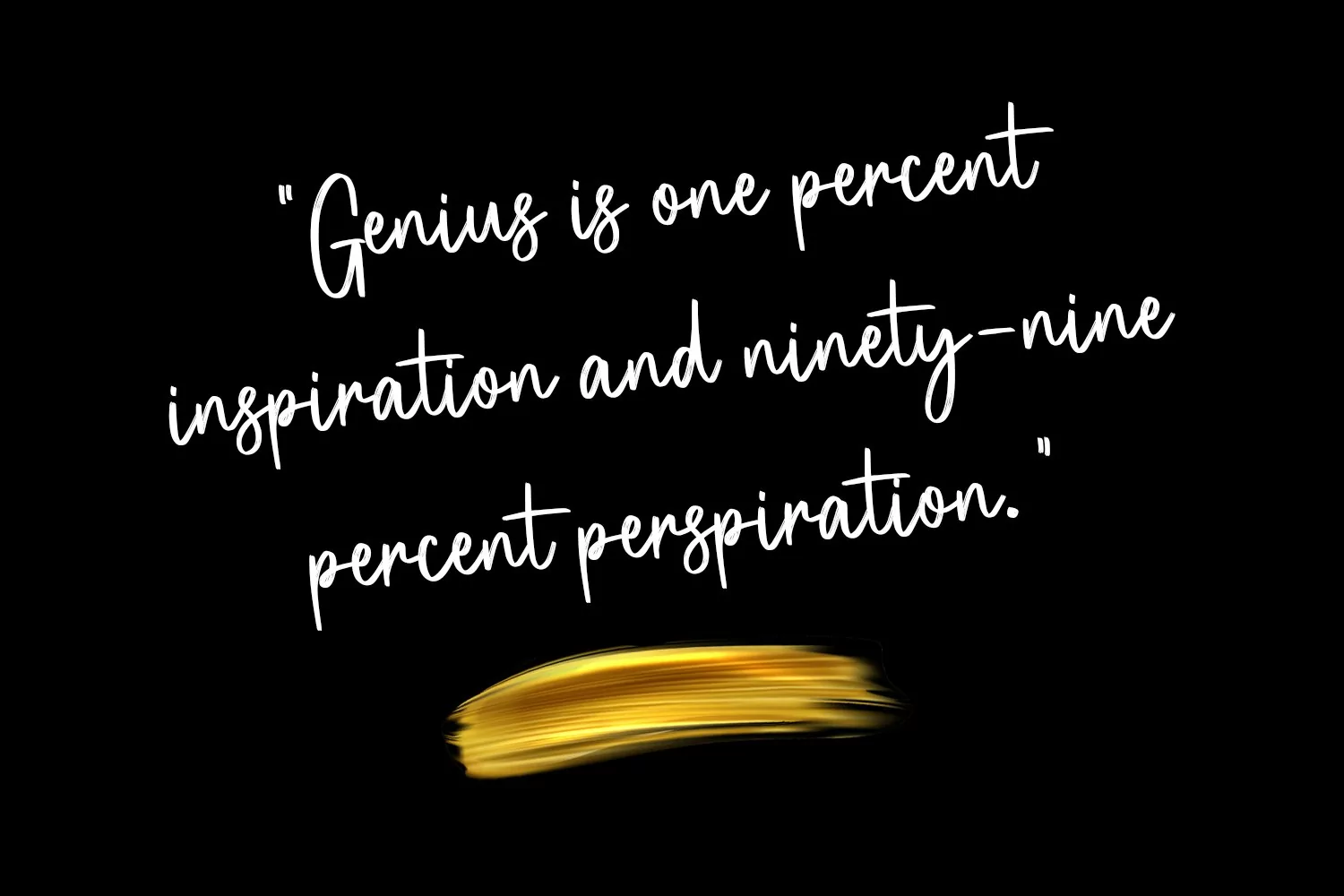
Goldshift is a modern handwritten brush script font, With a rough brush stroke and fun characters. It has Opentype features of ligatures and extra swash, makes it a perfect choice for branding and digital designs. Use this font for logos, social media, websites, blogs, instagram, social media, business cards, branding, and more! Goldshift font support multilingual more than 100+ language. and good pair for your secondary text font with sans or serif. Make a stunning work with Goldshift handwritten brush script font.